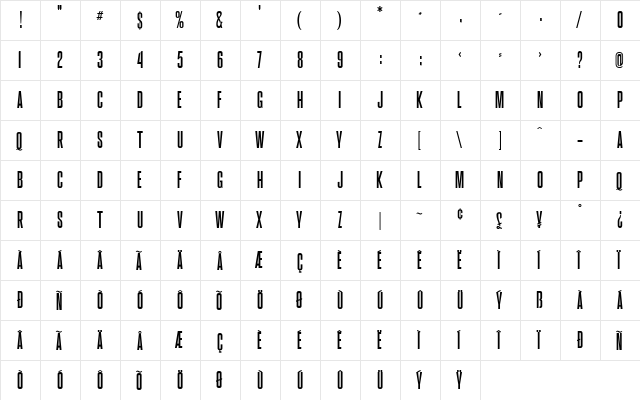
Brusio Regular
Design Context for Brusio Typeface
Brusio offers clean, dependable letterforms without strong stylistic allegiance, making it a practical choice for designers who need flexibility.
Pro Tip: Use Brusio in both headline and body roles to test its range before committing to a single application.